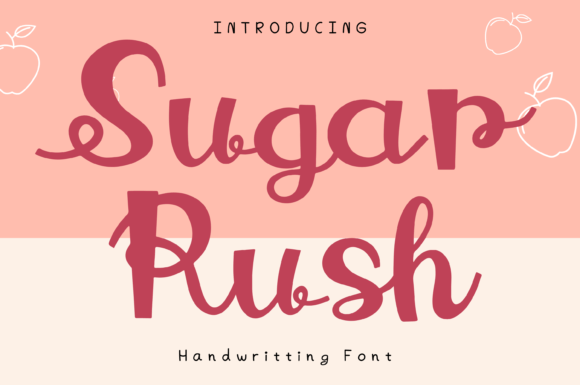
Introducing Sugar Rush Font, the ideal choice for all your creative endeavors! With its whimsical and clean handwritten style, this font is guaranteed to bring a touch of magic to any project. Whether you're designing invitations, crafting logos, or simply adding a dash of elegance to your website, Sugar Rush Font is here to elevate your creations to new heights.
Created by the talented AchiArt, Sugar Rush Font offers a unique and captivating aesthetic that is perfect for those seeking a font with personality. Its handwritten design adds a personal and human touch, setting it apart from generic and cookie-cutter options. In a world of ordinary fonts, Sugar Rush stands out as a true gem.
With its versatility, Sugar Rush Font is ready to accompany you on a wide range of projects. From wedding stationery to branding materials, this font seamlessly adapts to any context. Its ability to effortlessly blend with different design elements ensures that your creations will always look cohesive and professional.
Picture this: you're creating elegant wedding invitations, and you want them to reflect the joy and excitement of the occasion. Sugar Rush Font comes to the rescue, infusing your text with a sense of whimsy and romance. Your guests will be captivated by the unique charm of this font, making your invitations truly unforgettable.
But it doesn't stop there. Sugar Rush Font is also the perfect choice for professional settings. If you're working on a project that requires a touch of creativity and sophistication, this font will exceed your expectations. From marketing materials to presentations, Sugar Rush Font will ensure your content stands out from the crowd, leaving a lasting impression on your audience.
Furthermore, Sugar Rush Font is designed with user-friendliness in mind. Its clean and legible characters make it easy to read, ensuring that your message is effortlessly conveyed. No more struggling to decipher complicated fonts – Sugar Rush Font guarantees a seamless reading experience for your audience.